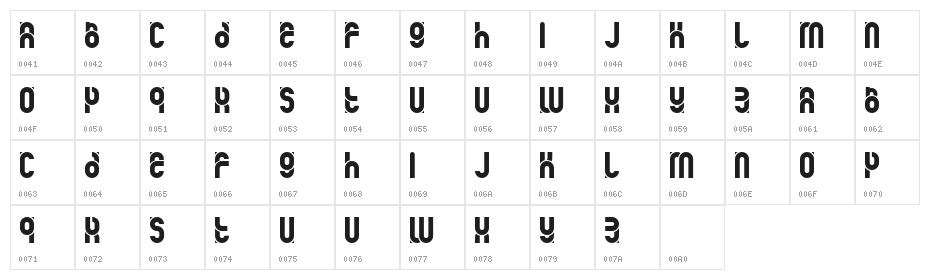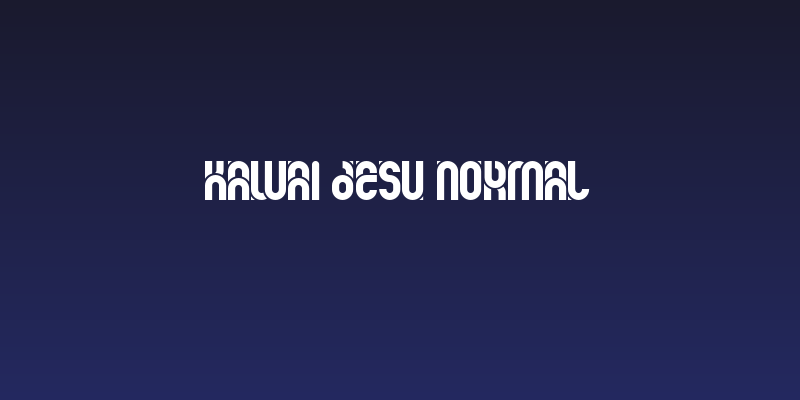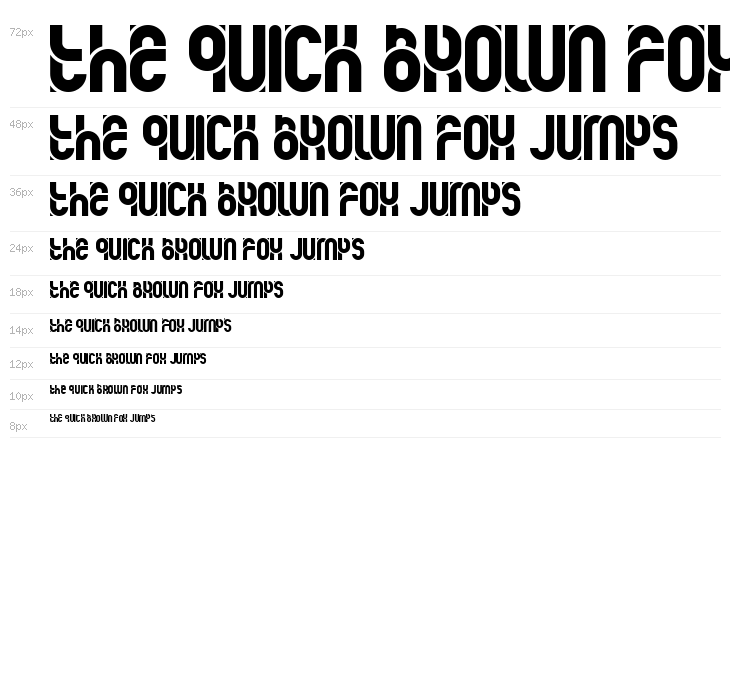
kawai desu normal Font
kawai desu normal Description
This font features a bold and geometric design with a distinctively modern and futuristic aesthetic. The characters are constructed with thick, uniform strokes that create a strong visual impact. The design incorporates rounded edges and a consistent stroke width, giving it a cohesive and structured appearance. The uppercase and lowercase letters maintain a similar height, contributing to a uniform look across the text. The font's unique style is characterized by its blocky and modular forms, which are both eye-catching and versatile. It is well-suited for projects that require a contemporary and innovative feel.